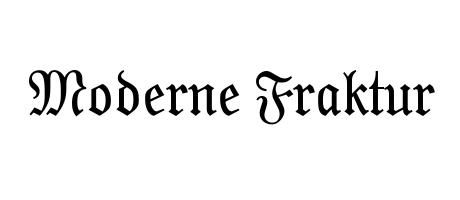
Moderne Fraktur
By Dieter Steffmann
Moderne Fraktur is a captivating typeface, a modern interpretation of the classic blackletter style. Its elegant forms retain the gothic feel, yet possess a streamlined, less ornate quality. The letters are distinct, with subtle curves and sharp angles creating a refined yet slightly edgy aesthetic. It hints at history while maintaining a contemporary appeal.